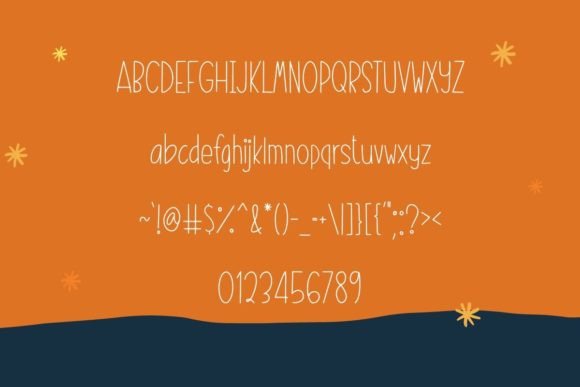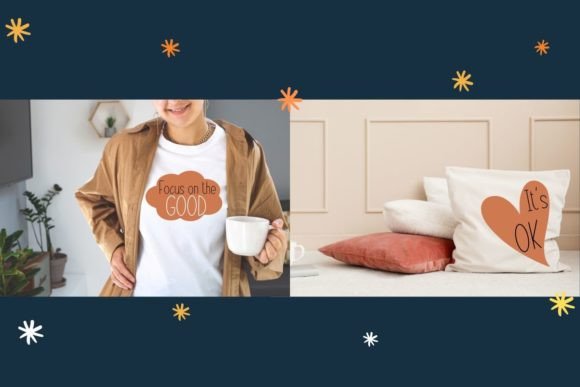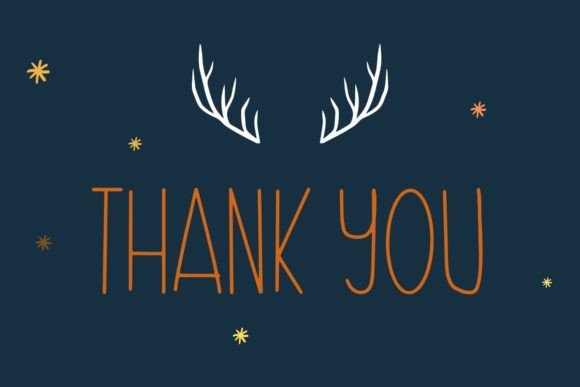
Introduction to Reindeer Font
As a designer, have you ever been in the middle of a creative project, brainstorming ideas and struggling to find the perfect font to bring them to life? You know the feeling – like the missing piece of a puzzle that’s just out of reach. That’s when I stumbled upon the Reindeer Font, a sleek and modern sans-serif font that instantly elevated my designs and took them to the next level.
With its minimalist aesthetic and skinny lines, the Reindeer Font is perfect for adding a touch of sophistication to greeting cards, notes, and other creative projects. Whether you’re a seasoned designer or just starting out, this versatile font is a valuable addition to your design resource library. And the best part? It’s available for free download, making it an accessible and high-quality resource for designers of all levels.
From transparent backgrounds to high-quality images, the Reindeer Font is a game-changer for any design project. In this article, we’ll dive into the details of this amazing font and explore why it’s a must-have for any designer looking to take their creative ideas to the next level.
Key Features of Reindeer Font
- High-quality design resource ideal for creative projects and festive themes
- Unique and playful typography with a transparent background for seamless integration
- Perfect for designing holiday-themed materials, such as Christmas cards, gift tags, and more
- Includes a range of characters, including uppercase and lowercase letters, numbers, and punctuation marks
Honest Review: Reindeer Font
I recently had the opportunity to work with the Reindeer Font, and I must say it’s been a delightful experience. This free download has quickly become a go-to design resource for my creative projects.
One of the things that stands out about the Reindeer Font is its high quality. The font is crisp, clean, and perfect for a variety of applications, from logo design to social media graphics.
What works well with the Reindeer Font is its versatility. It can be easily customized to fit any design style, and its transparent background makes it a breeze to work with.
Here are a few pros of the Reindeer Font:
- ✨ Versatile and easy to customize
- ✨ Transparent background for seamless integration
- ⚠️ Limited character set, which may be a concern for some users
- ⚠️ Not suitable for large-scale printing, due to its digital nature
Overall, I’m thoroughly impressed with the Reindeer Font. Its high quality, versatility, and free download make it an excellent addition to any designer’s toolkit. While it may have a few limitations, I believe it’s a valuable resource that can help take your creative projects to the next level.
Tips for Getting the Most Out of Reindeer Font
Experiment with different font sizes and colors to create a visually appealing design. Use the Reindeer Font in conjunction with other design elements to create a cohesive look. Consider using the Reindeer Font as a title or heading font to draw attention to important information.
The Reindeer Font is commonly used for festive designs, such as Christmas cards and holiday-themed social media posts. It’s also used in children’s educational materials and advertising campaigns targeting families with young children. The Reindeer Font is a versatile design resource that can be used in a variety of creative projects.